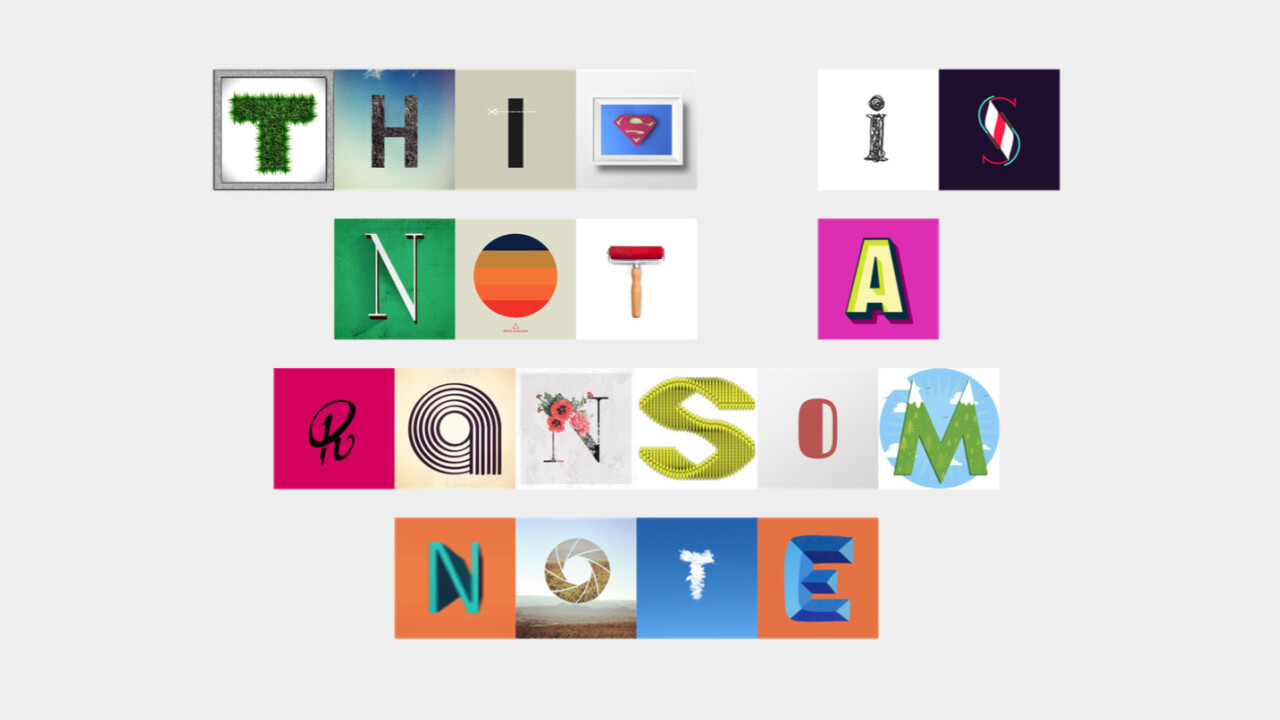
This Instagram font generator creates the perfect Valentine’s love letter, or ransom note
Writing love letters is hard. Sending ransom notes is even harder.
No matter what your intended use, Type to Design has you covered.
The free Web application allows users to type a brief message to their special, or not so special, someone and then converts the typed letters into beautiful letterforms from 36 Days of Type, a sort of showcase for beautifully designed letters and numbers.
Once complete, the user is left with a visual image of their typed message that looks, well, a lot like a ransom note.
If you want to tweak individual images, and you probably will, just click the refresh icon that appears over it. From there, you’ll be met with options ranging from beautifully ornate, to “O” shaped donuts.
When designing from the heart sometimes, a middle finger is a lot more appropriate than elegant “I,” we get it.